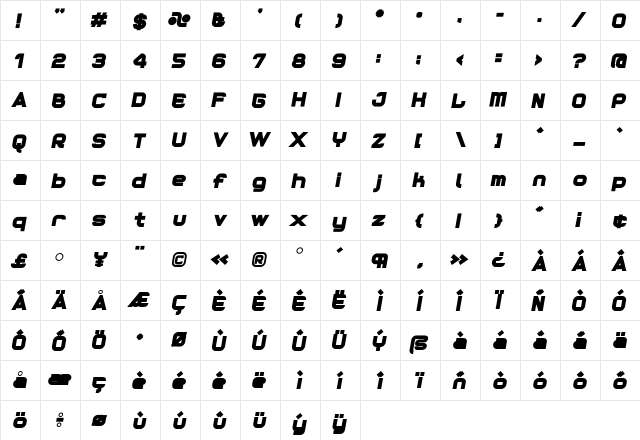
Reaction Heavy Italic
Design Context for Reaction Typeface
Reaction offers clean, dependable letterforms without strong stylistic allegiance, making it a practical choice for designers who need flexibility. The slanted form adds forward momentum and visual energy.
Pro Tip: Use Reaction for emphasis, pull quotes, and subheadings where its slanted energy can add rhythm to the layout.